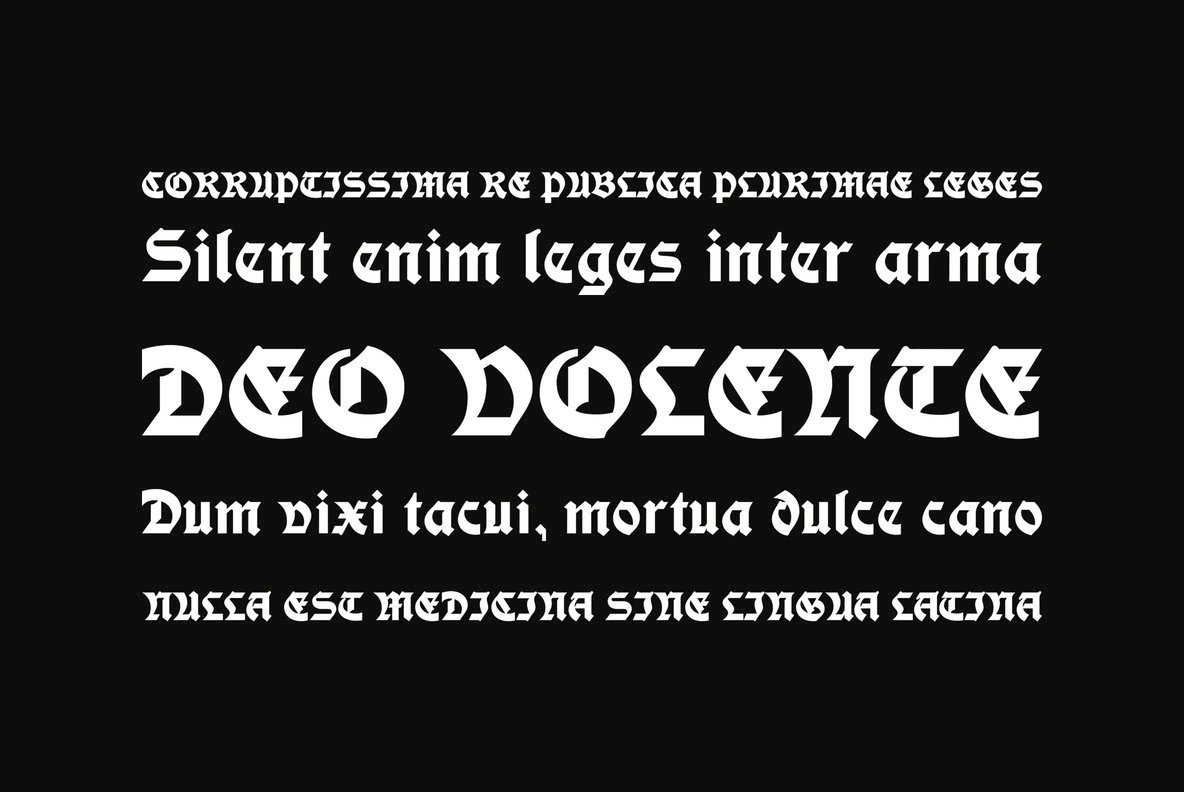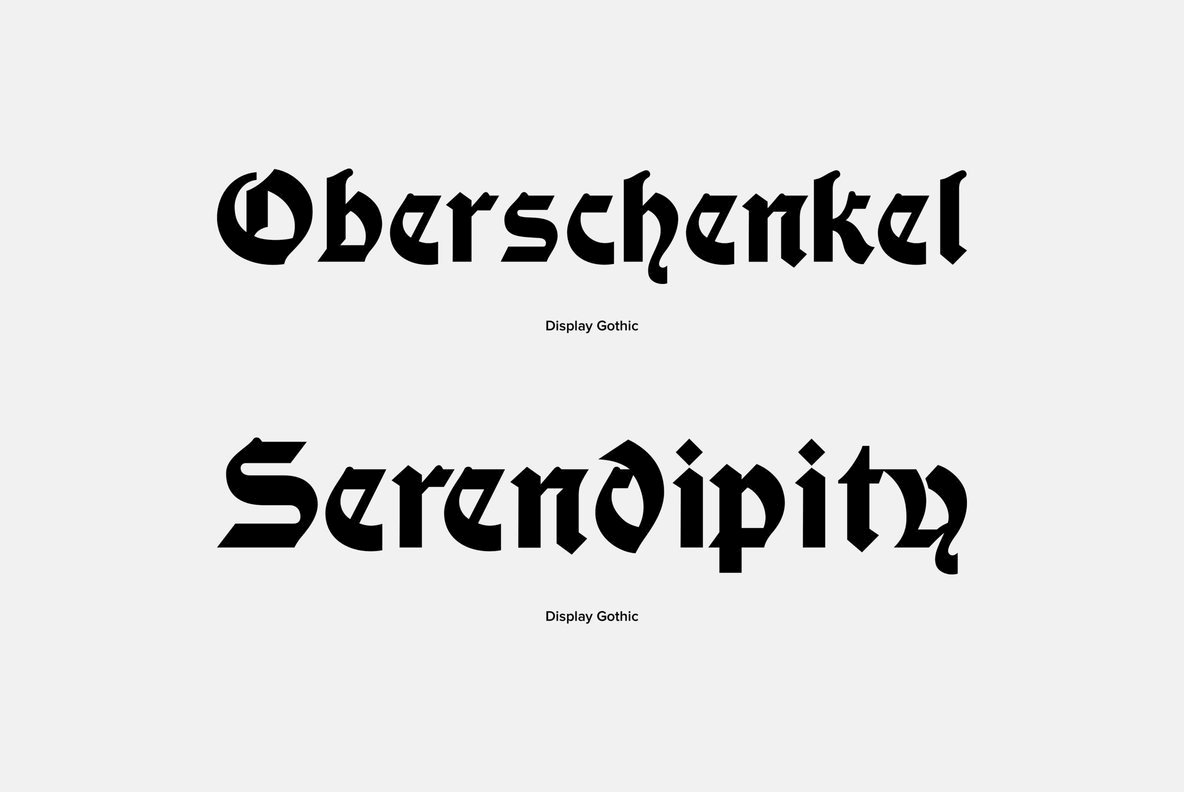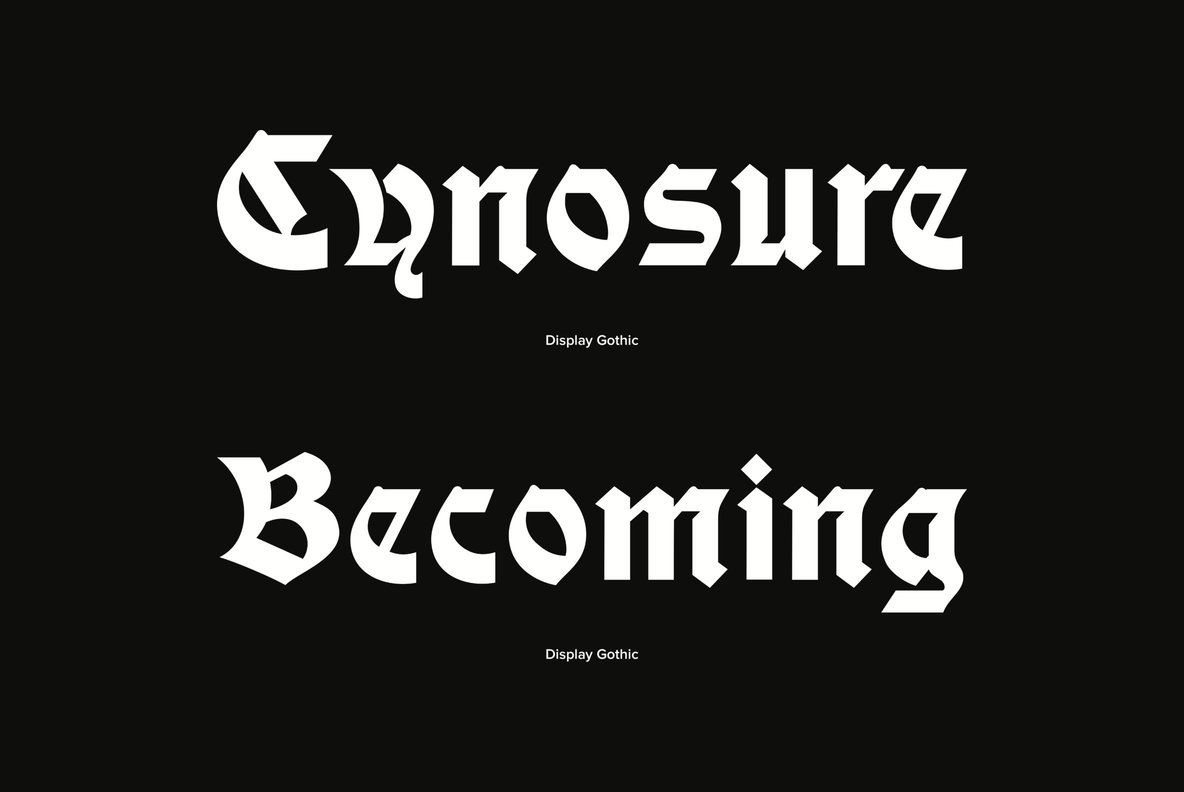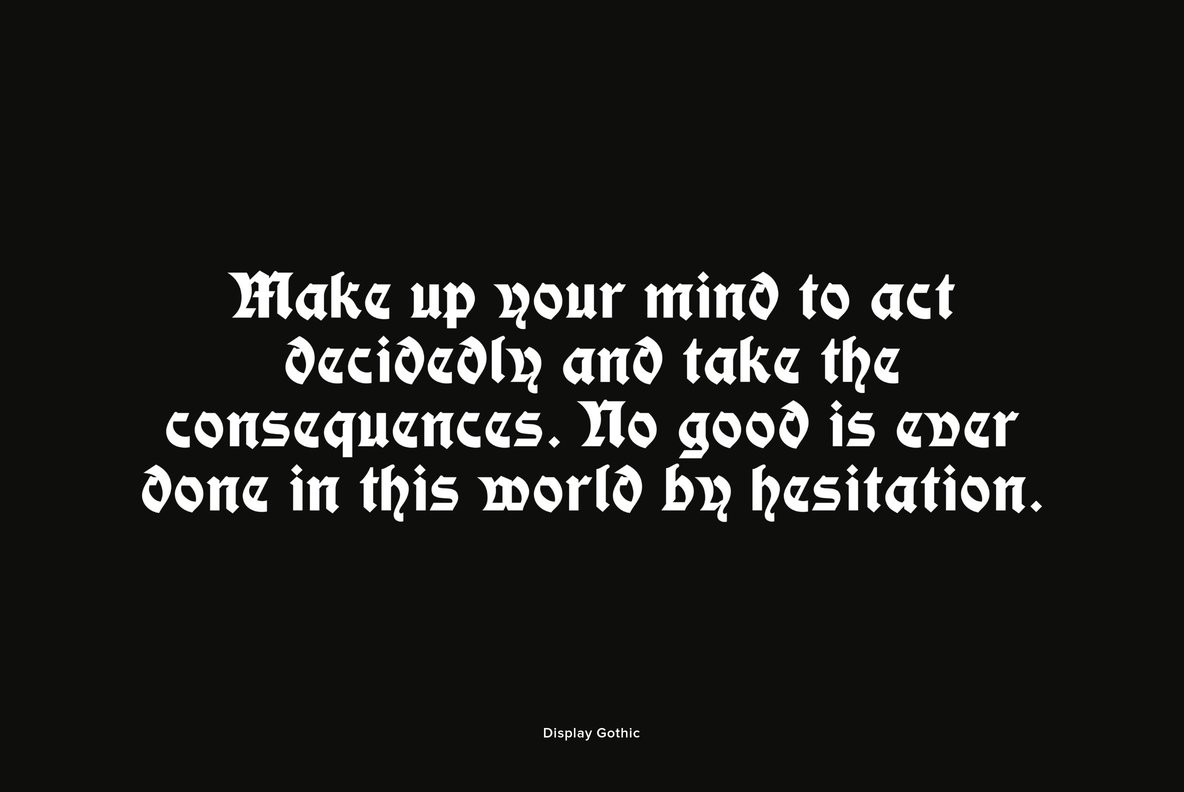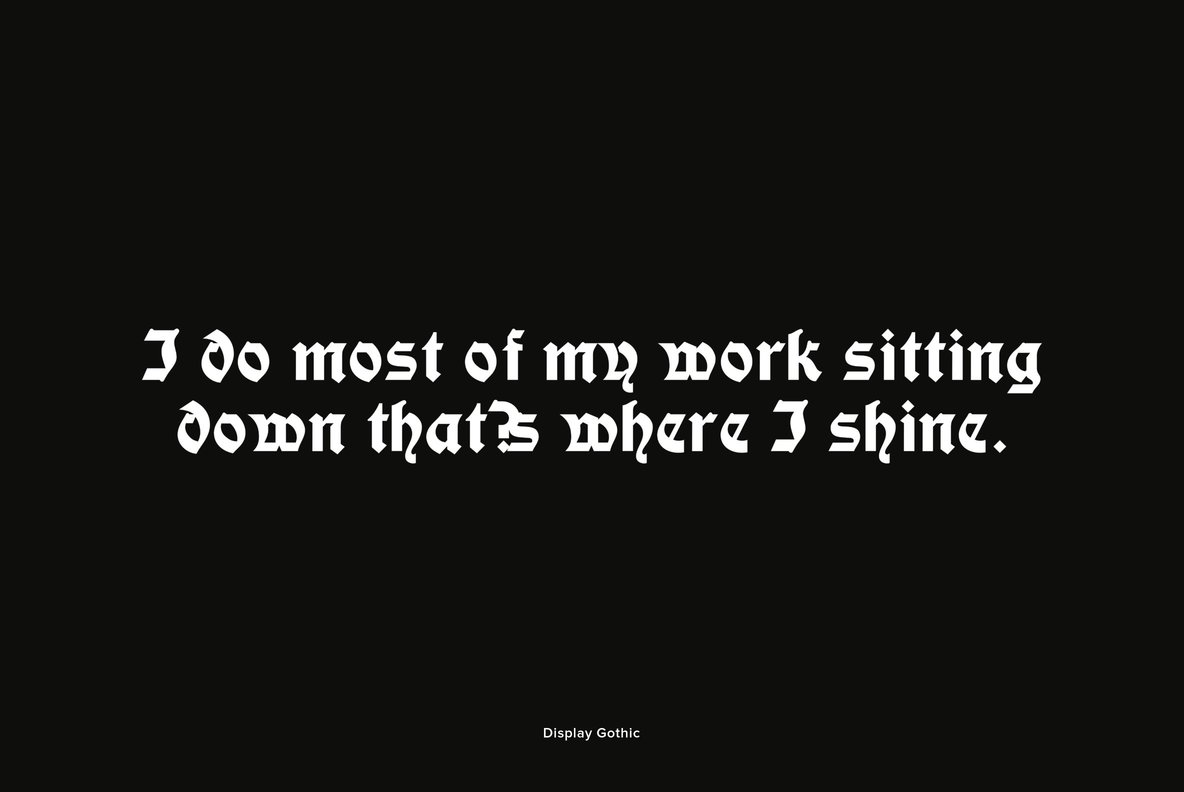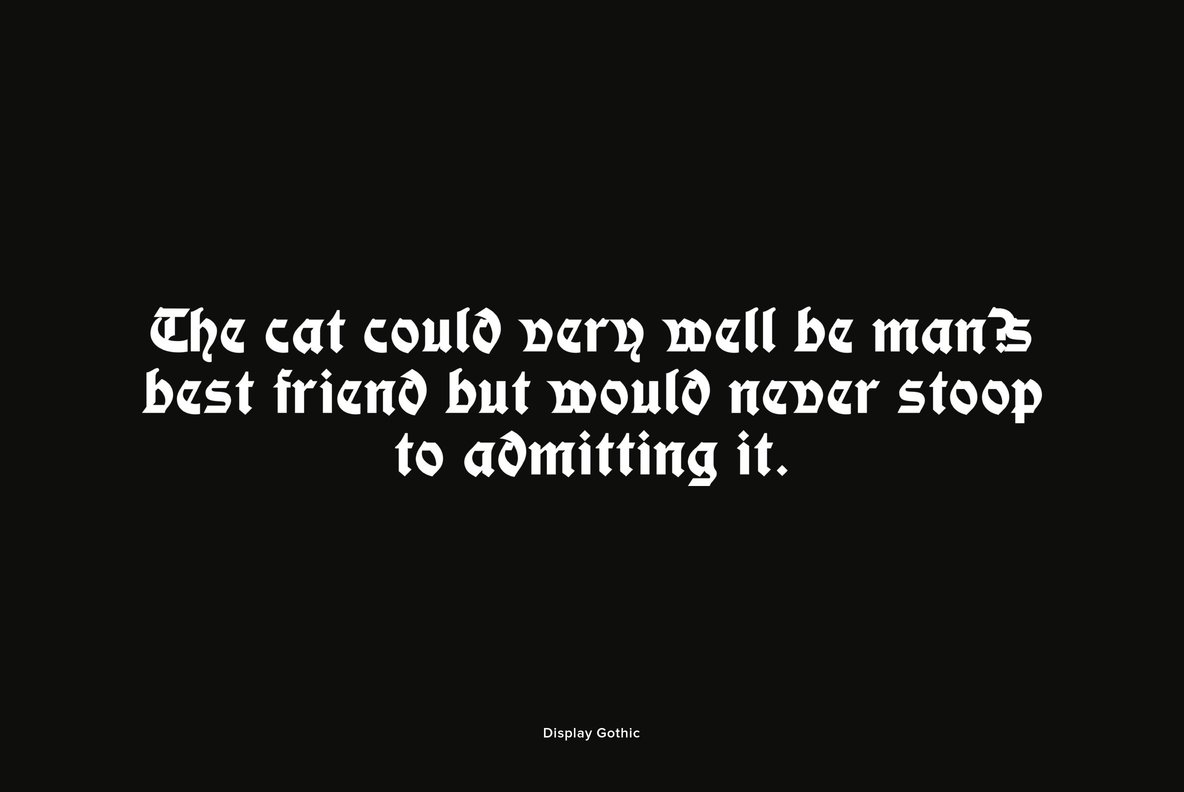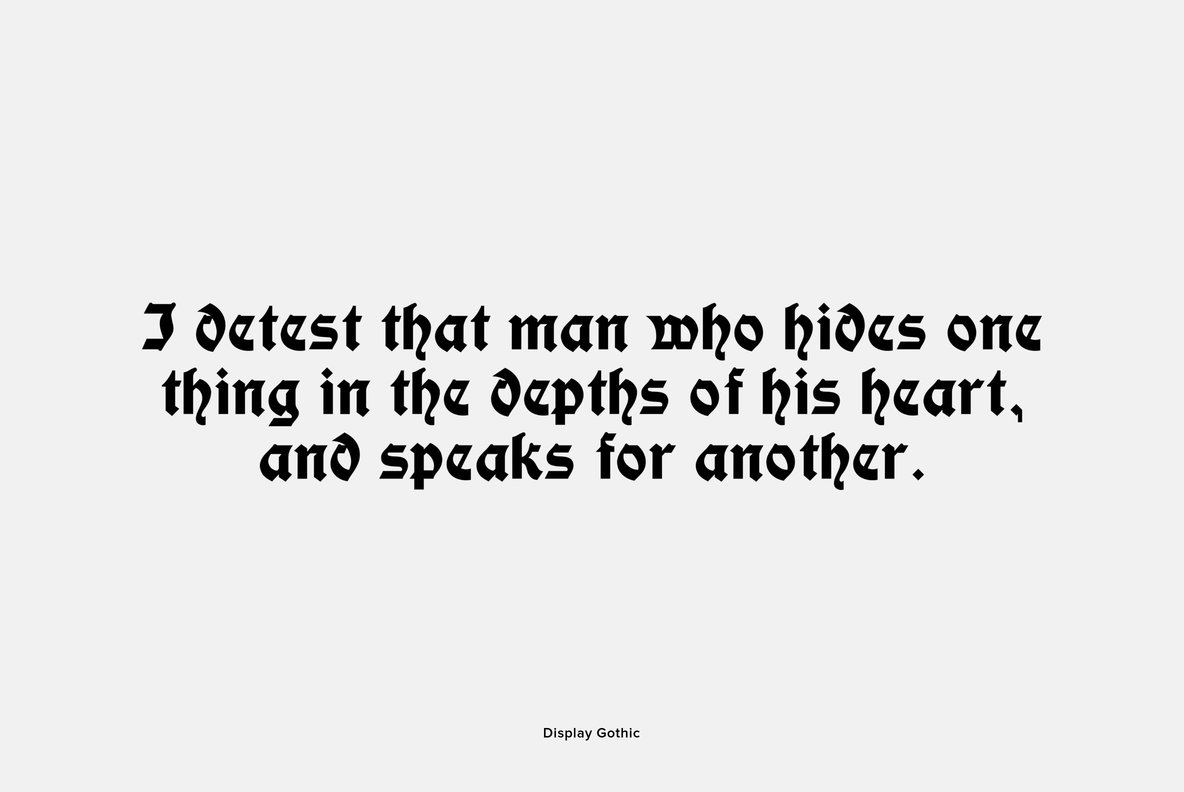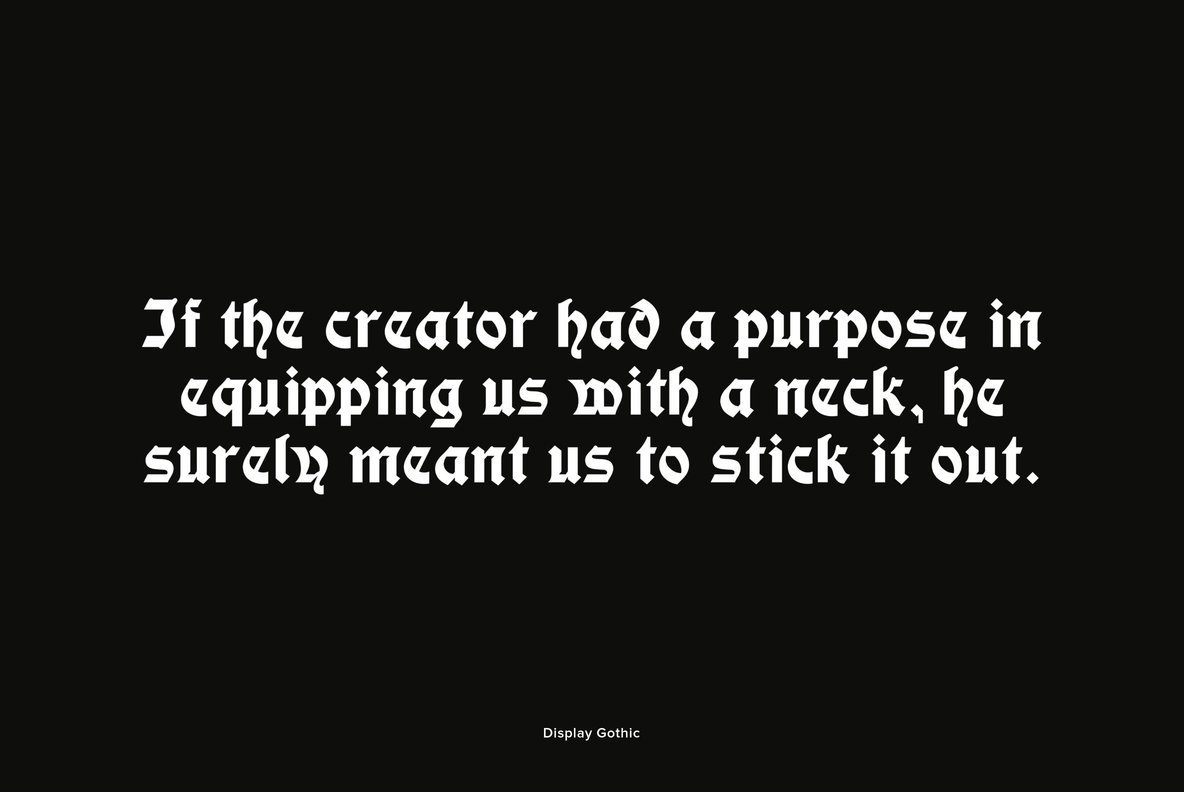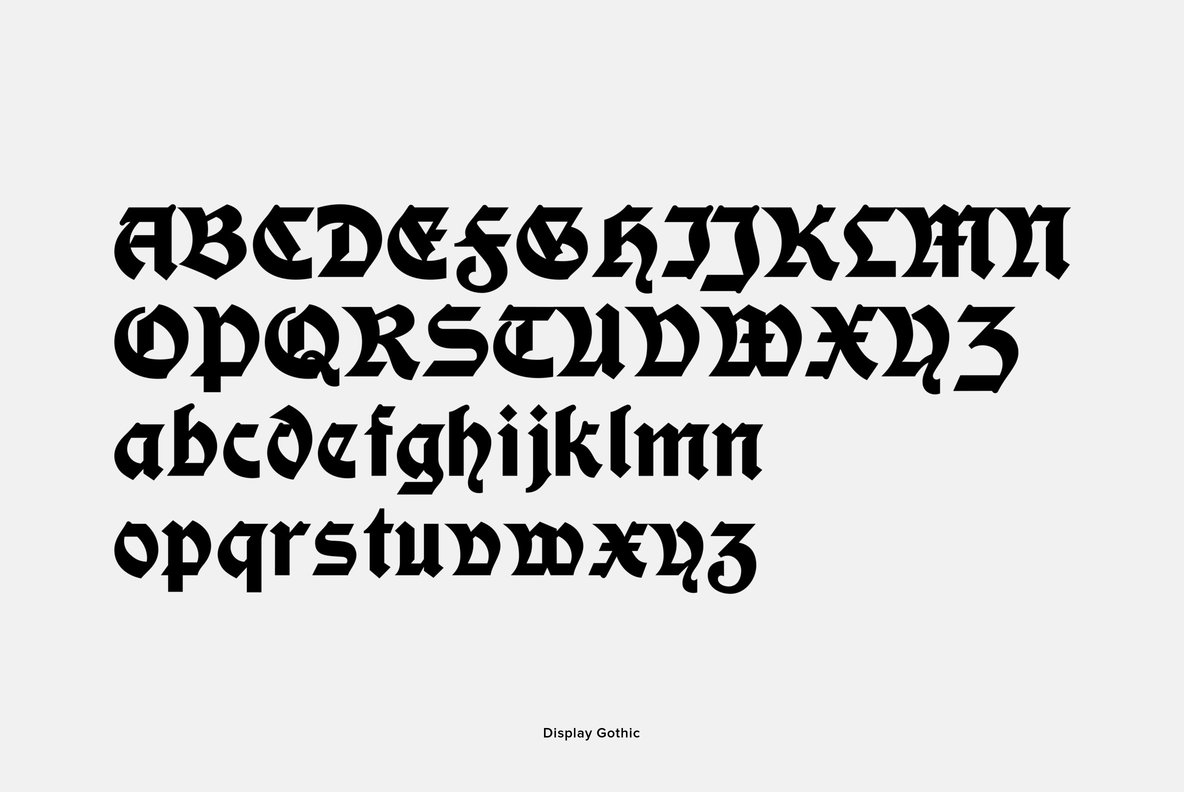
Display Gothic Font
Display Gothic
Display Gothic is a display font not intended for text use. It was designed specifically for display, headline, logotype, branding, and similar applications.
Display Gothic has upper and lowercase alphabets, numbers, and punctuation.
Gerald Gallo is a professional graphic designer.While designing trademarks and logotypes, Gerald often designed unique lettering. It was a natural step to create entire alphabets from some of these designs. However, it was very difficult to have a font produced before the advent of the personal compute...